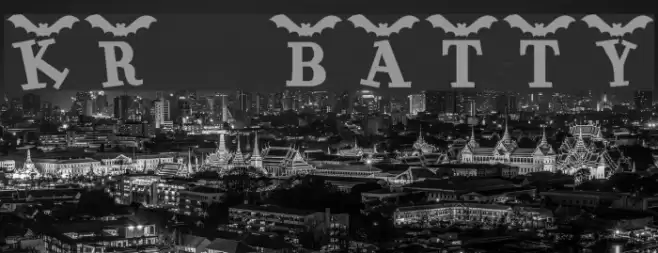
KR Batty Font
KR Batty Description
This font features a unique and playful design with each character adorned by a bat silhouette on top, creating a whimsical and spooky aesthetic. The letters are bold and slightly tilted, adding a dynamic and lively feel. The uppercase characters are consistent in size and shape, maintaining a uniform appearance despite the decorative elements. The font is ideal for Halloween-themed projects or any design that requires a touch of mystery and fun. Its distinctive style makes it stand out, ensuring that any text using this font will capture attention and convey a sense of creativity and imagination.
- Proposed Projects: Ideal for Halloween invitations, party decorations, themed posters, and creative branding.